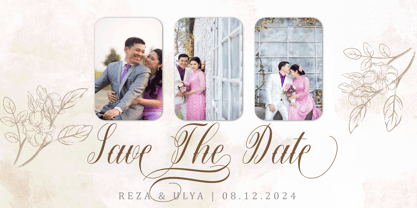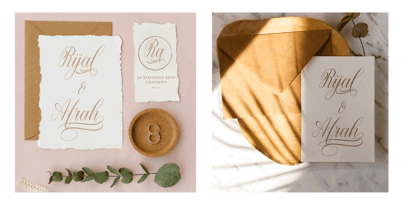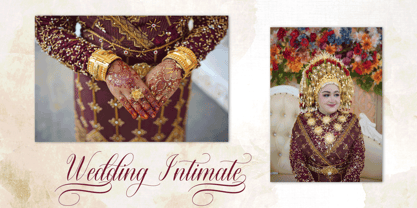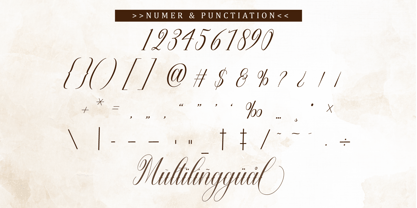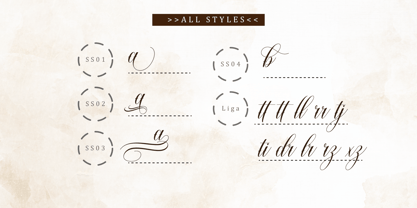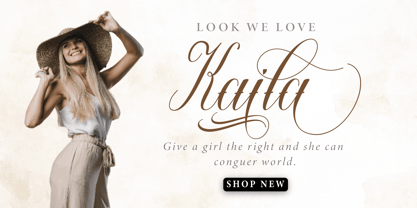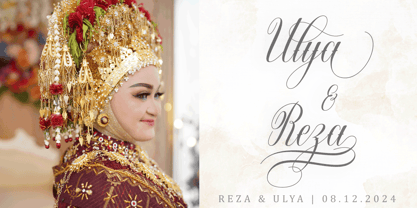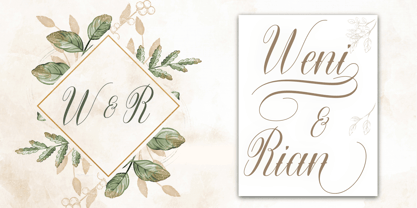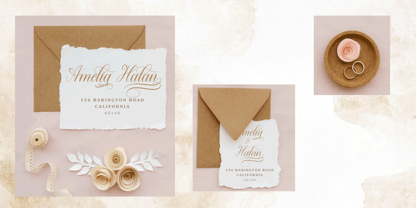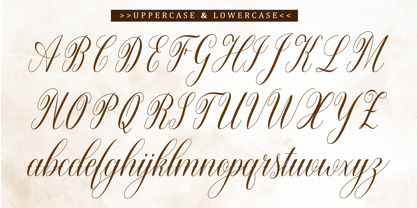
Warton
by Rezastudio
The Warton Font Family was designed by Reza Mukhtazar and published by Rezastudio. Warton contains 1 styles. More about this family
New modern calligraphy font - Warton. This beautiful script is for those who need elegance and style for their designs and is perfect for wedding invitations, save the date cards and feminine branding.
Warton includes a complete set of Basic Uppercase and Lowercase Characters, Numbers and Punctuation. Also contains ligatures and many alternative styles to perfectly recreate natural calligraphy (check the preview to see them all).